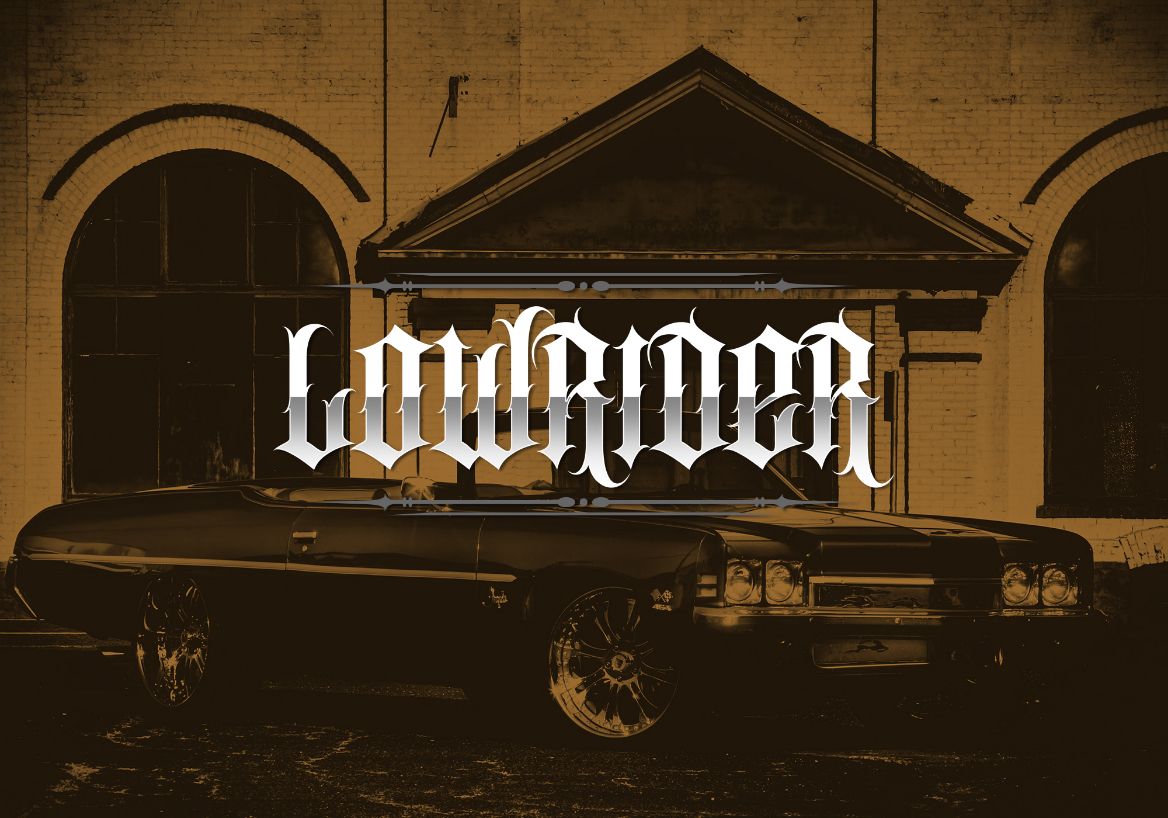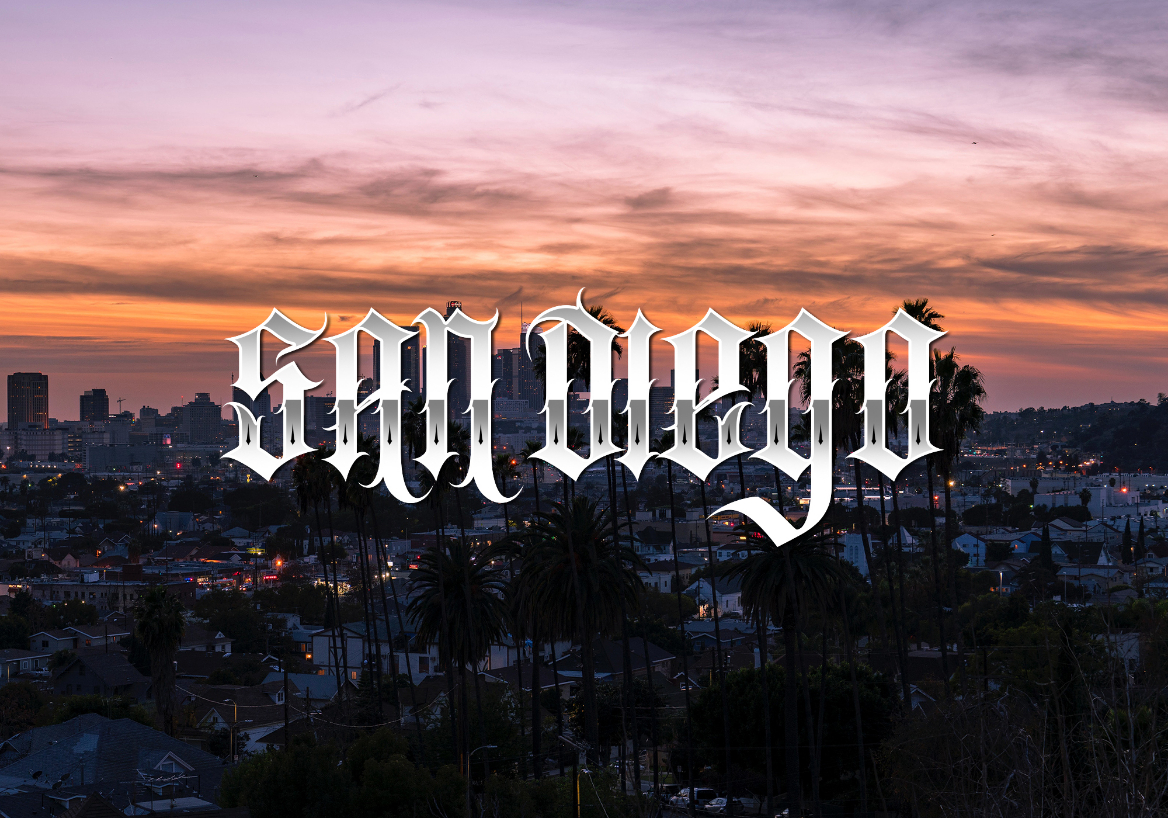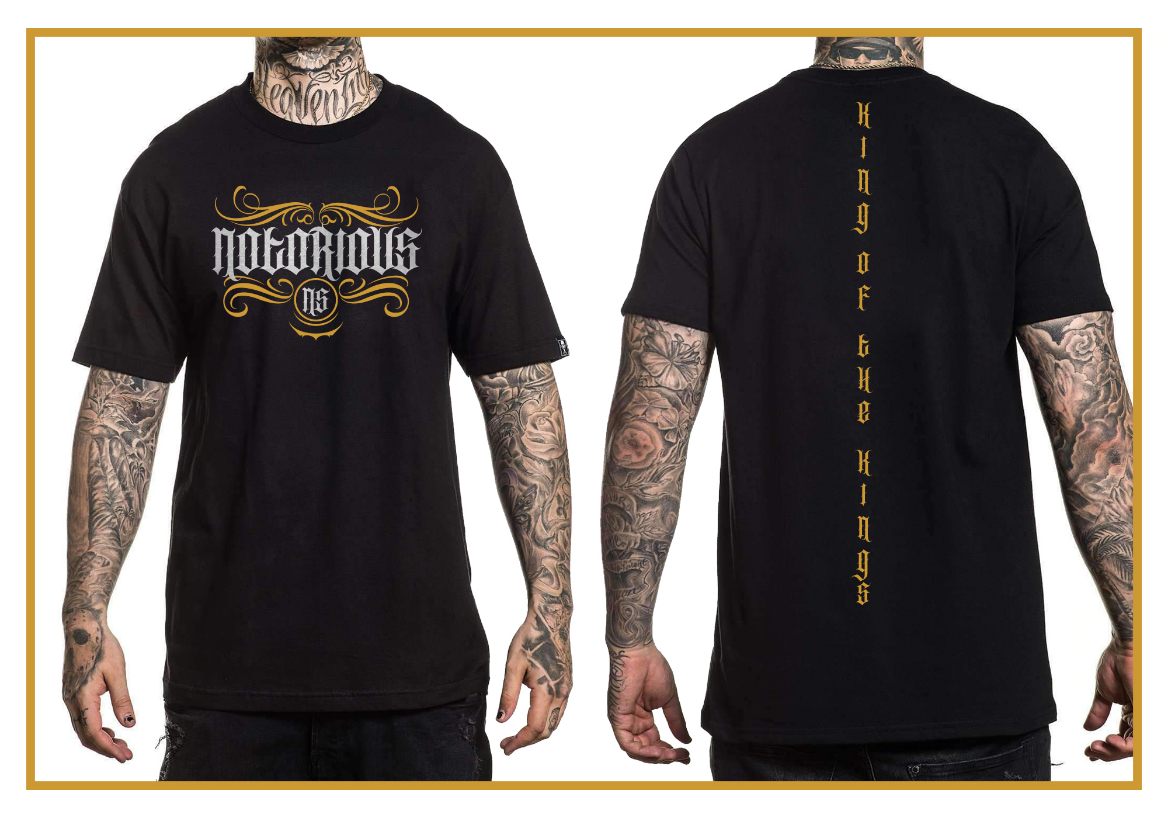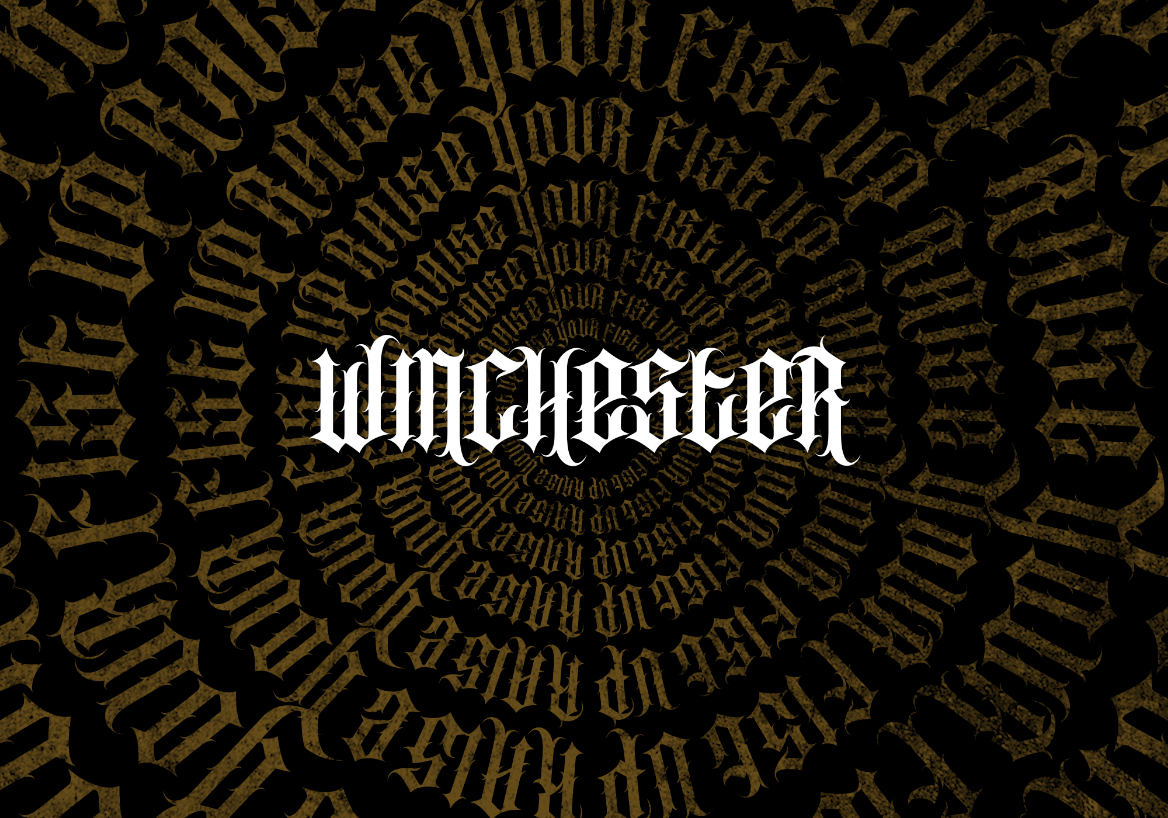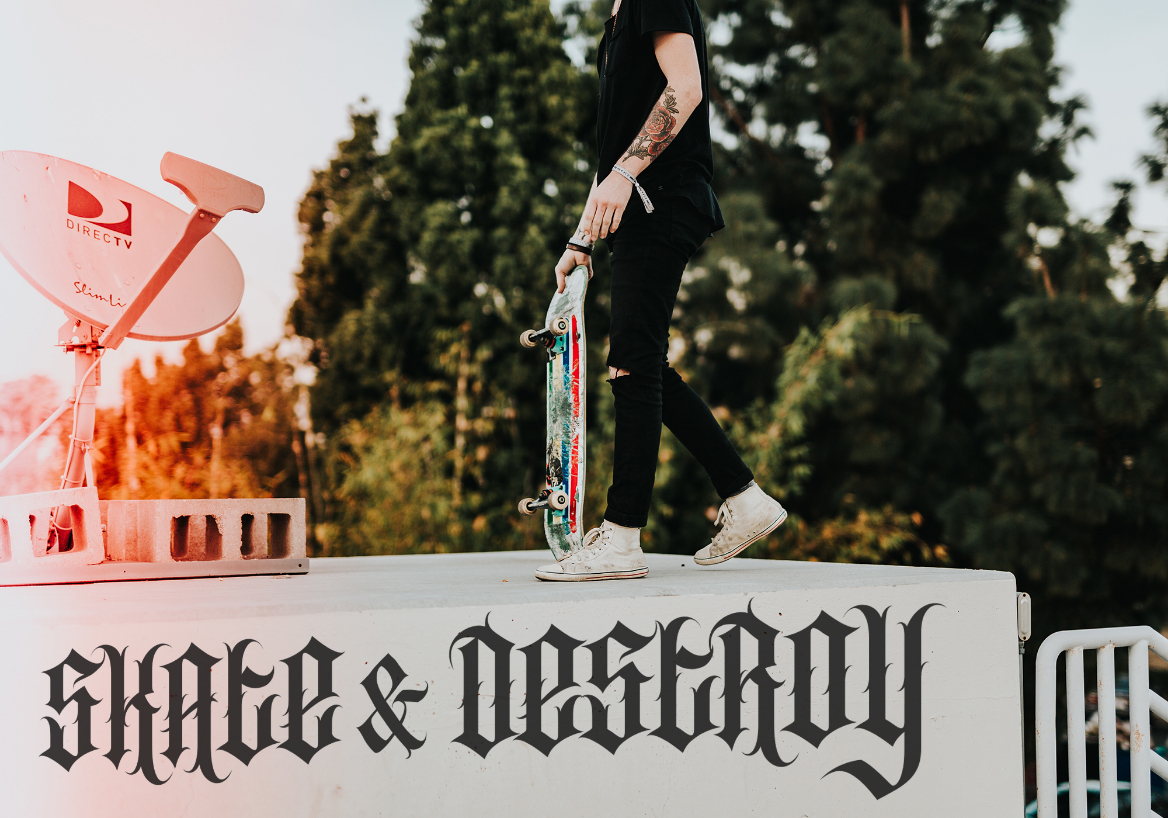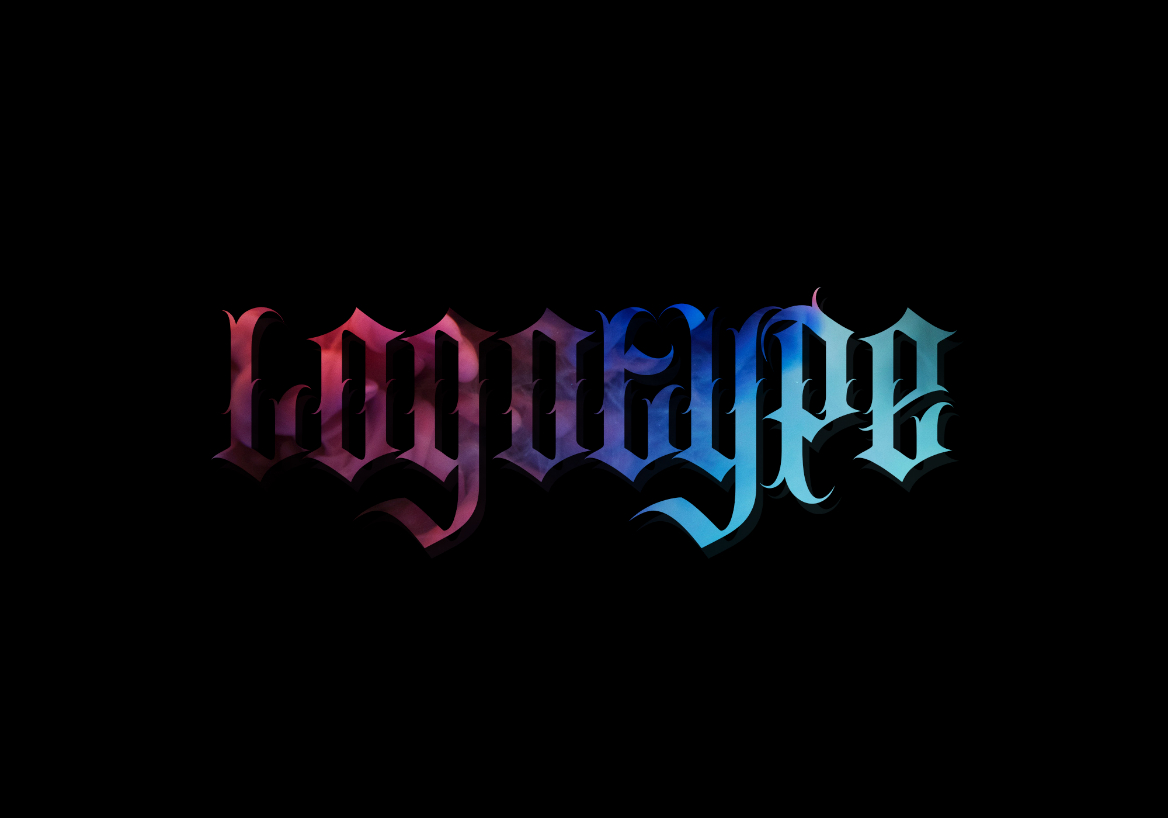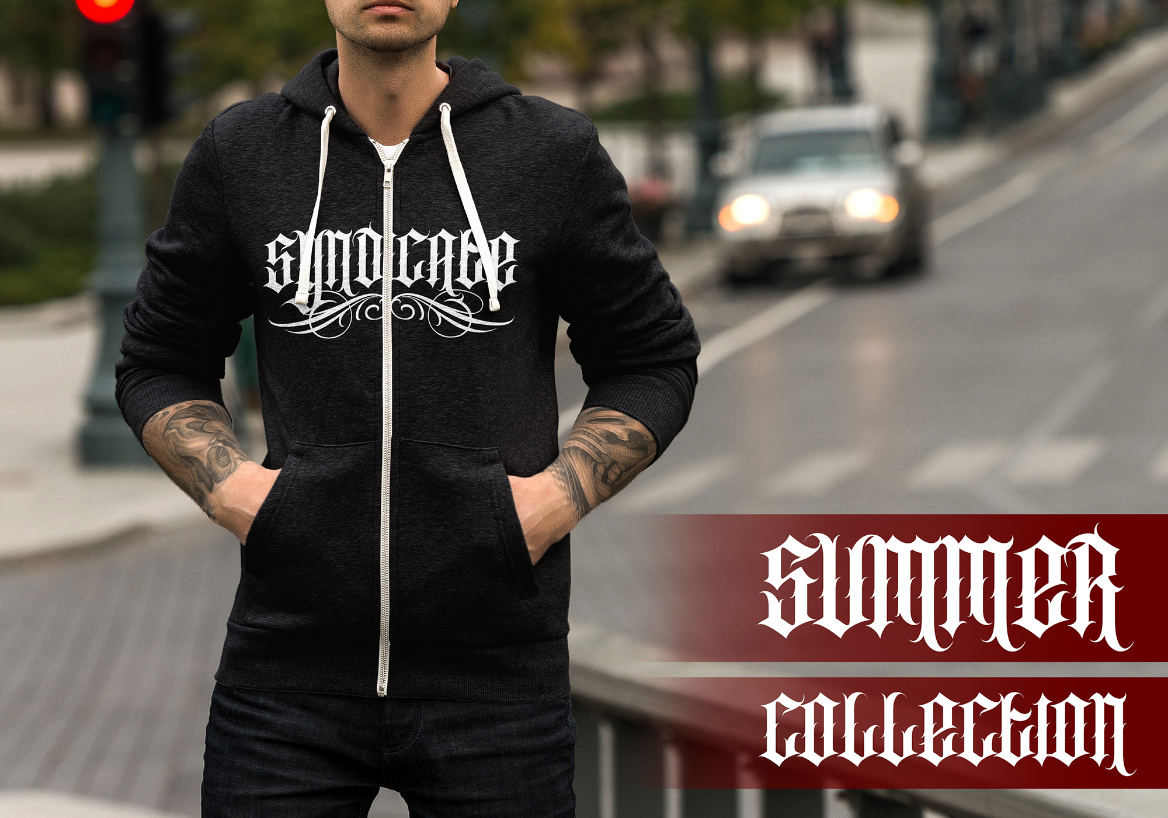
Southside Font
About Southside Font
Southside is an amazingly unique blackletter font with a strong and classic vibe. Get inspired by its unique feel!